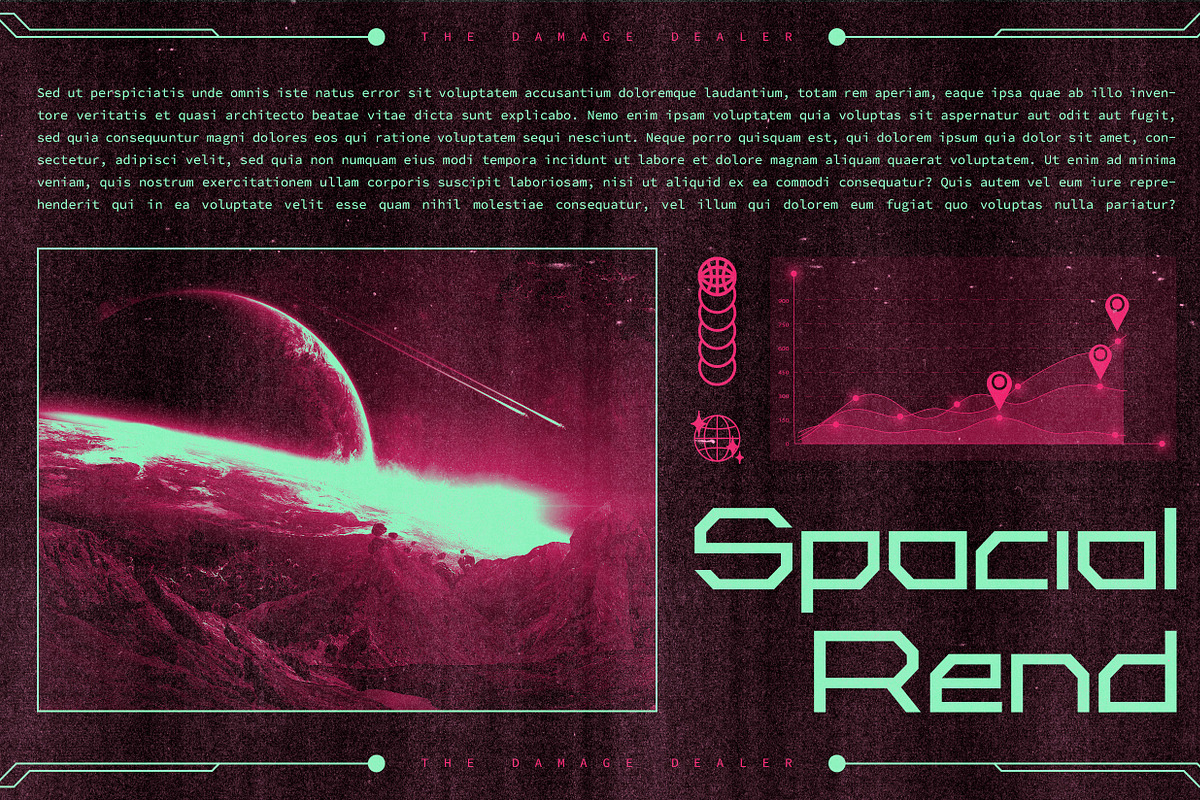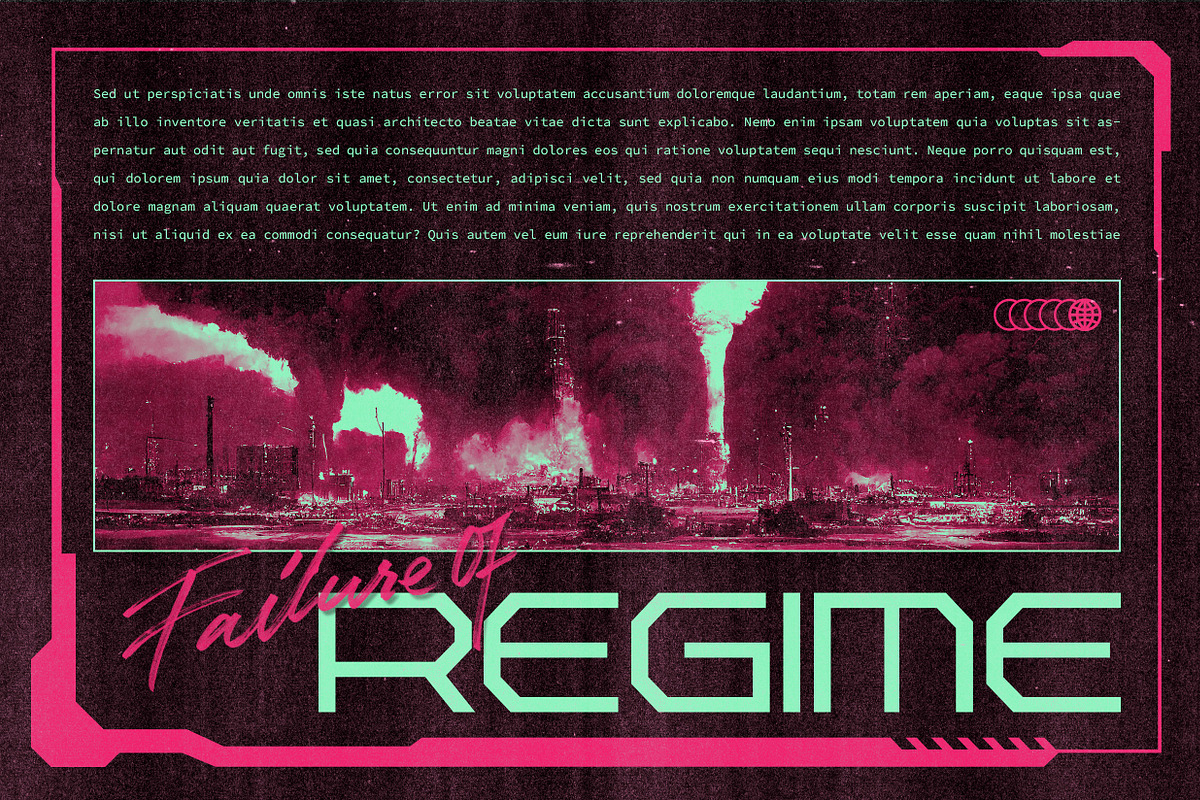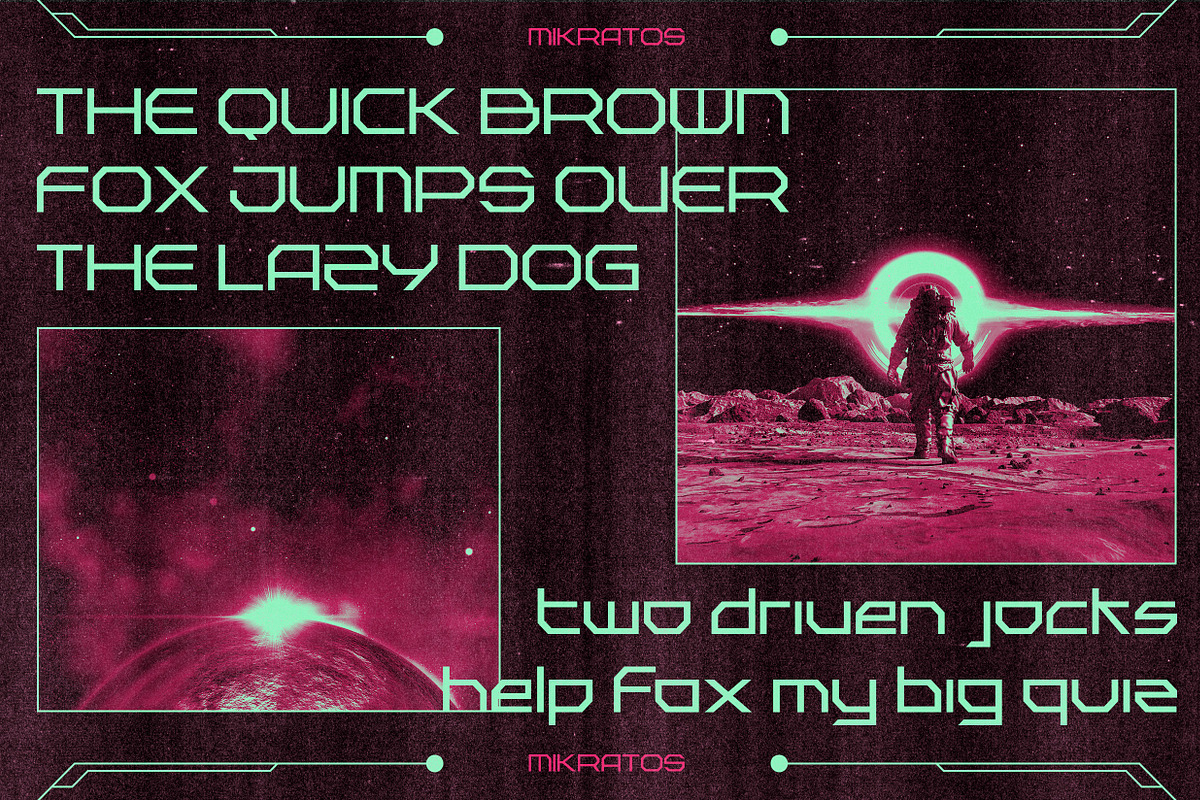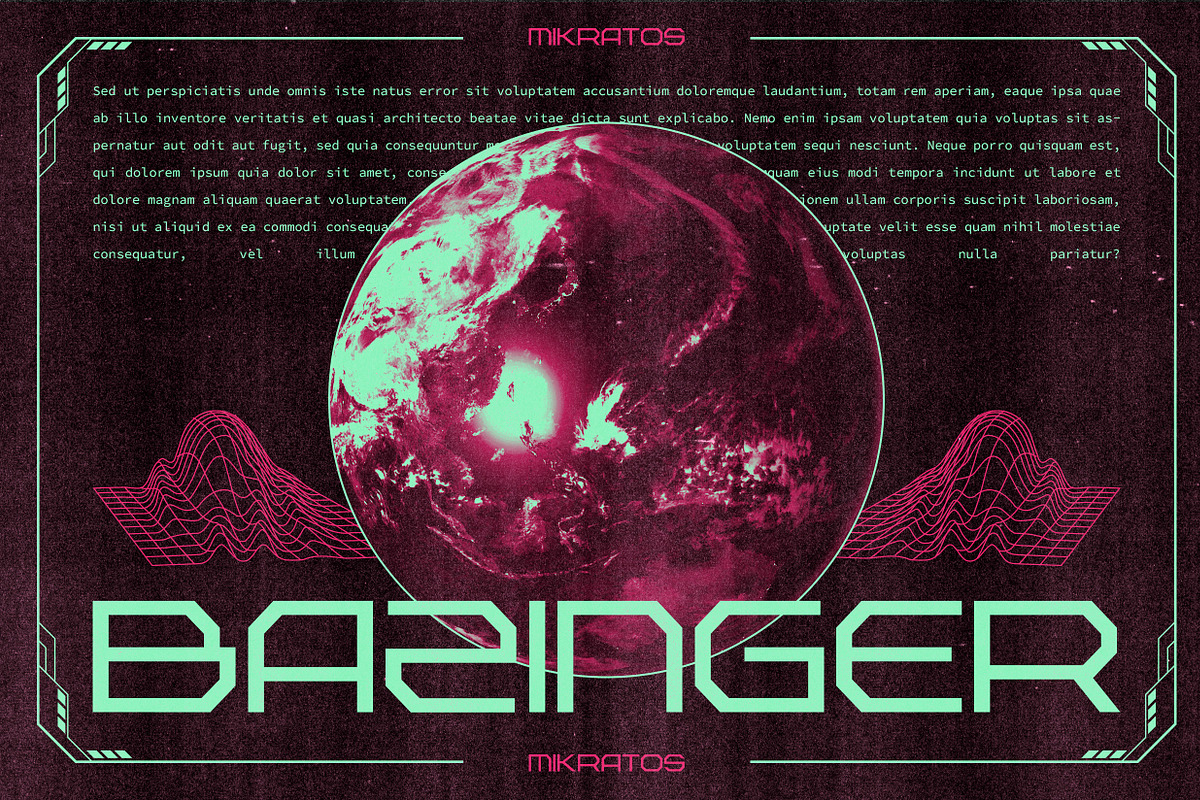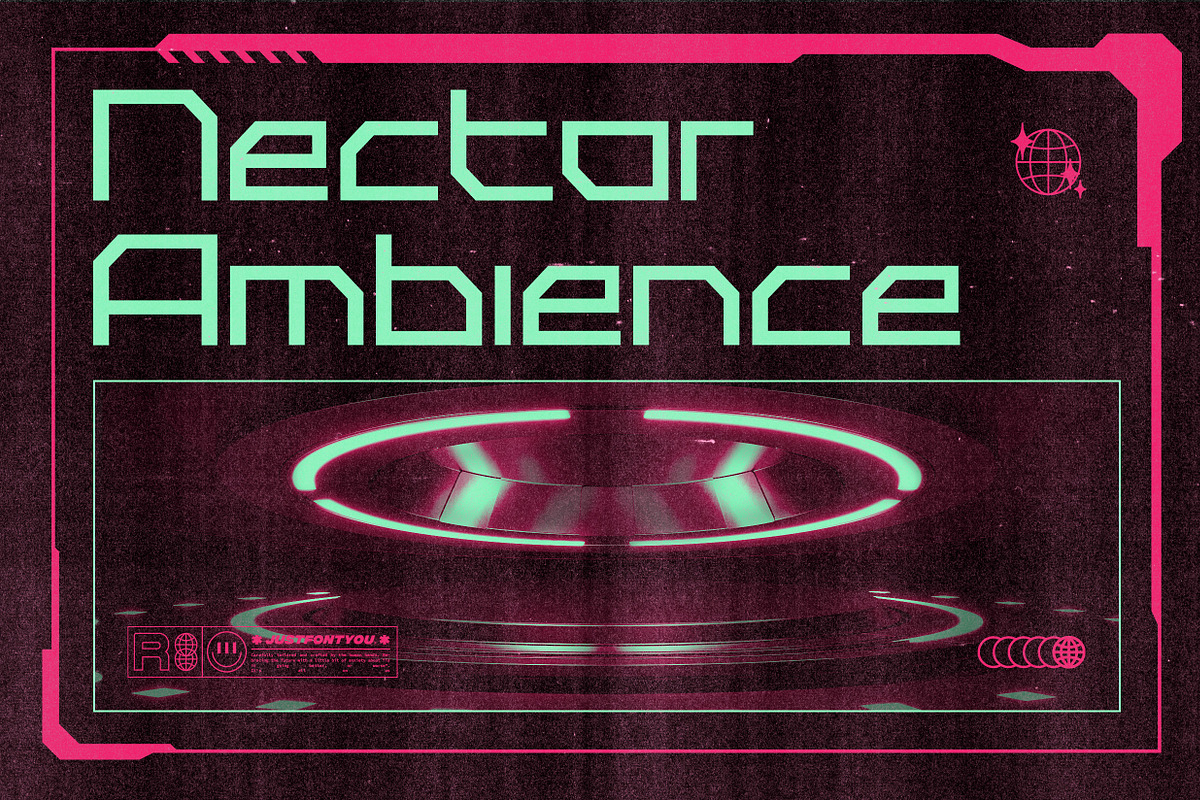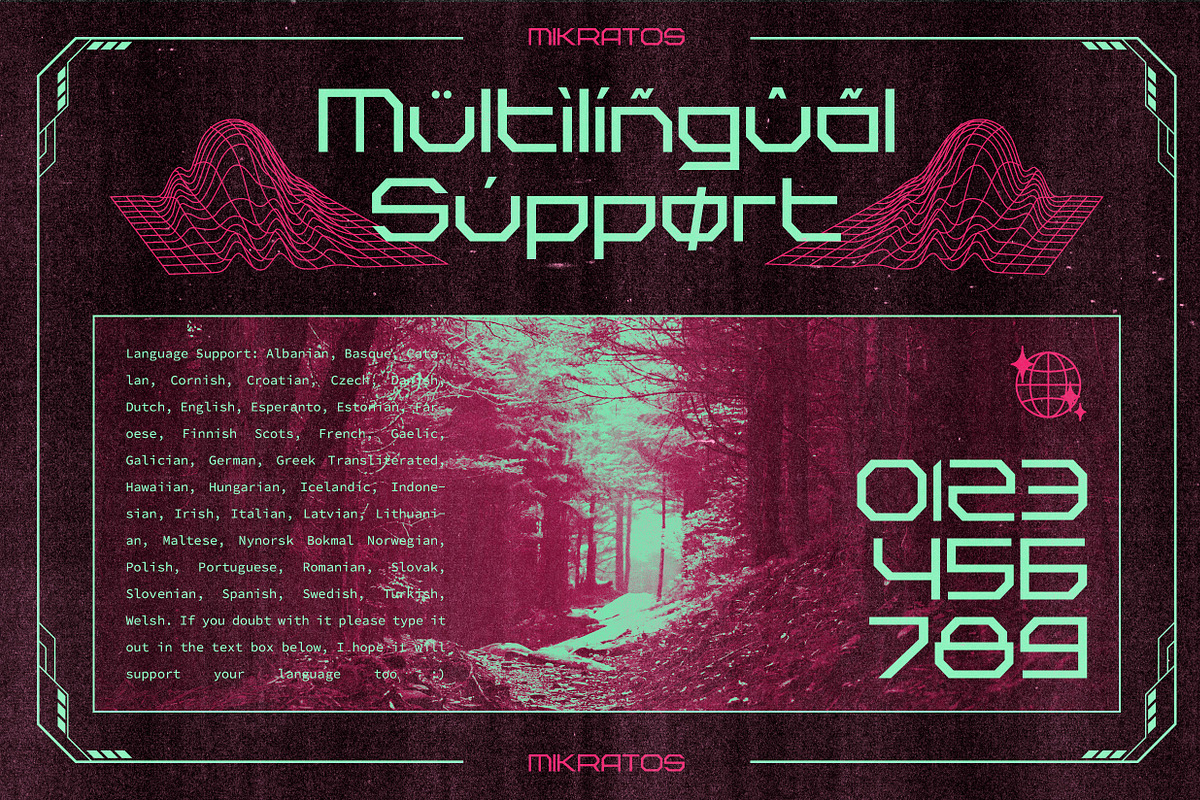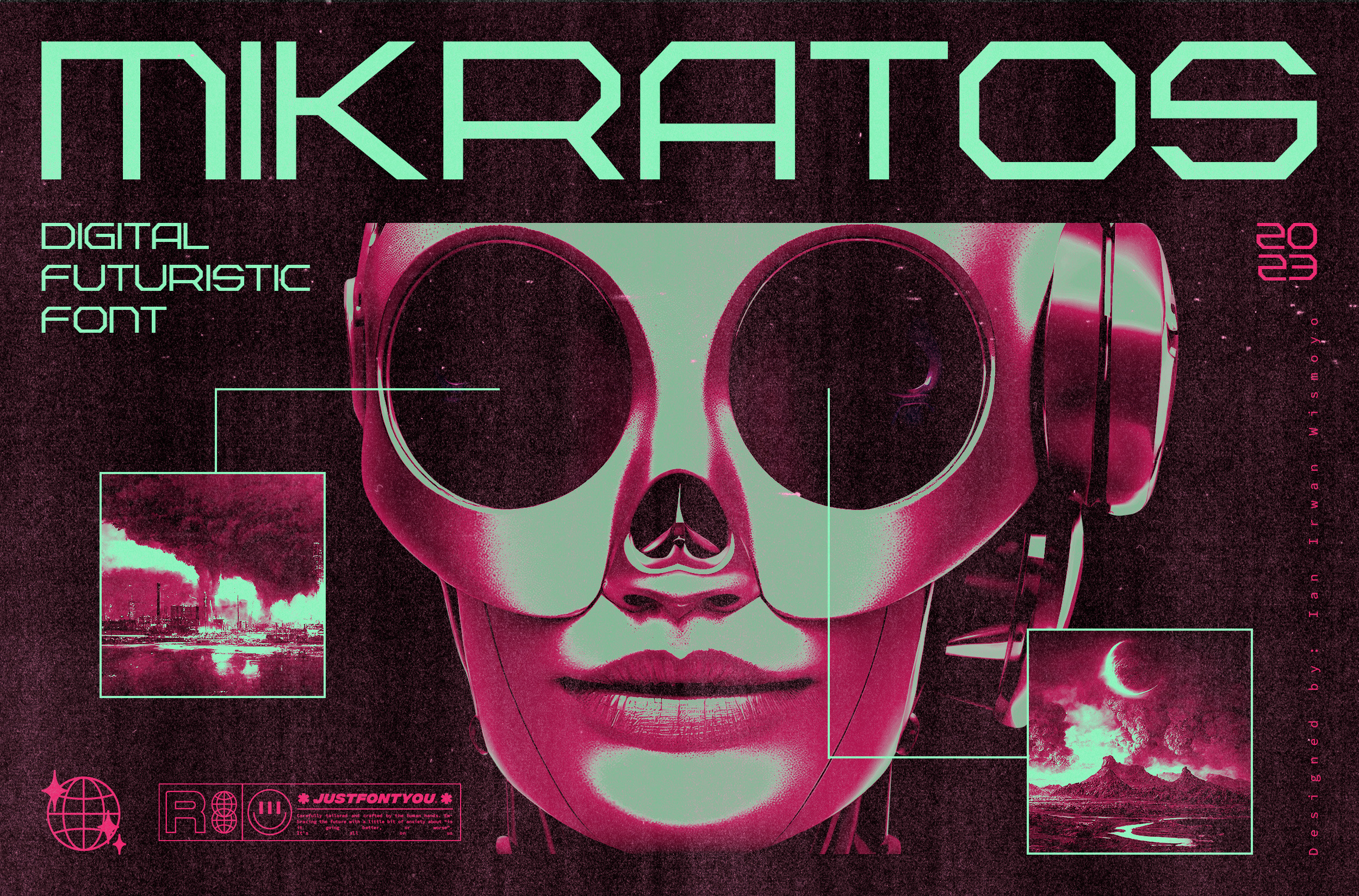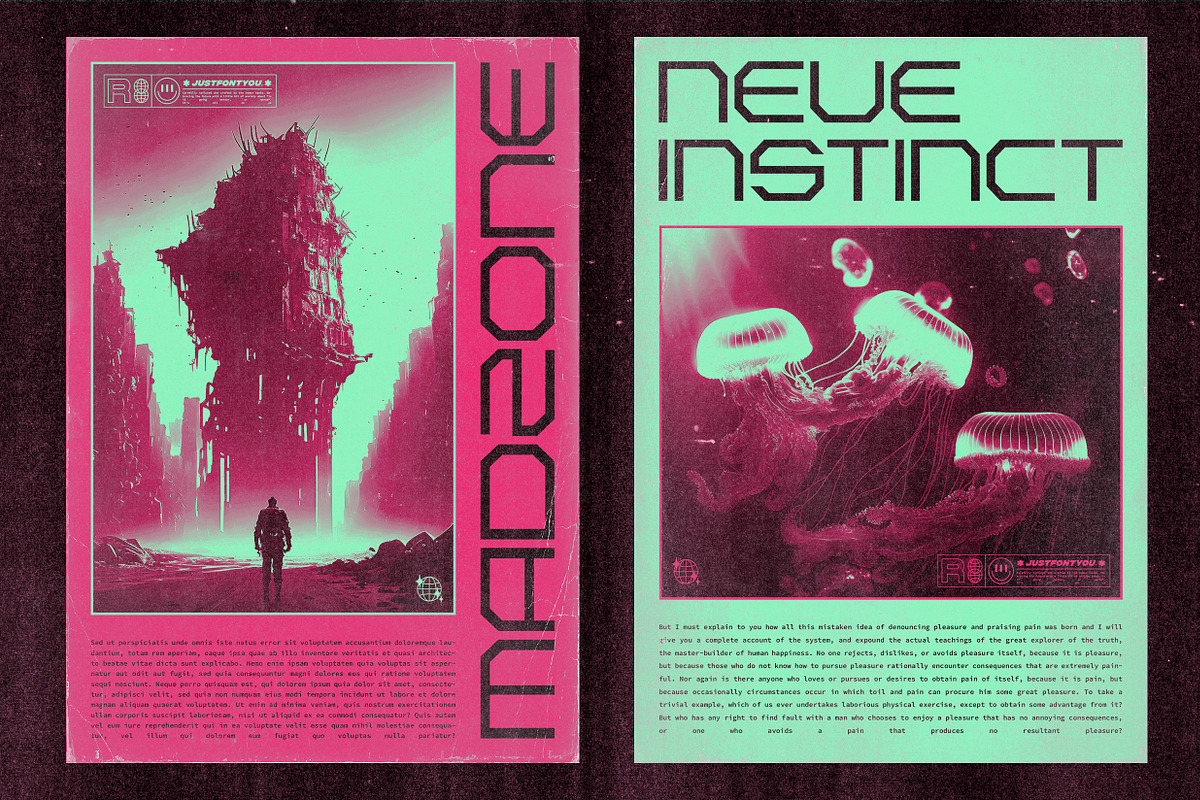
Mikratos - Futuristic Display Fonts
Mikratos is a digital futuristic font inspired by the interfaces in sci-fi movies and retro games visual. Developed to be the solid time-jumper between vintage retro-futurism and also the futuristic nowadays trend in the graphic design and visual industry.
Perfectly fit for logo, branding, gaming, esport design, poster, music video, album artwork, cover, book, packaging, merchandise, apparel, fashion, and many more.